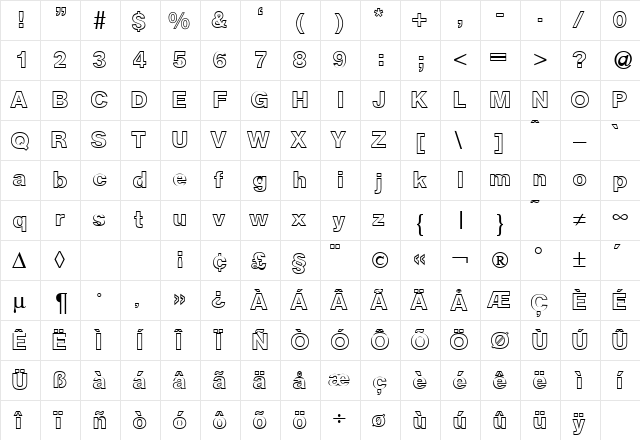
AtkinsOutline Bold
Design Context for AtkinsOutline Typeface
AtkinsOutline is built around its visual character rather than neutral utility — its distinctive forms are designed to make an impression at display sizes. The heavy weight commands attention and anchors typographic hierarchies.
Font Pairing: Pair with a clean neutral sans-serif for body copy to let AtkinsOutline's character lead without overwhelming the composition.
Pro Tip: Treat AtkinsOutline as the centrepiece of your typographic hierarchy. One strong heading set in a decorative face can carry an entire layout.